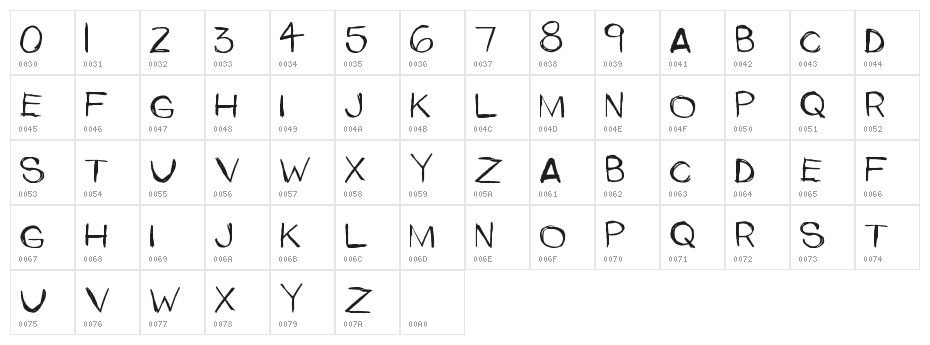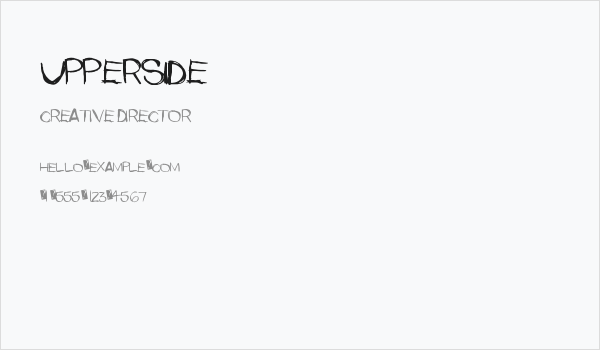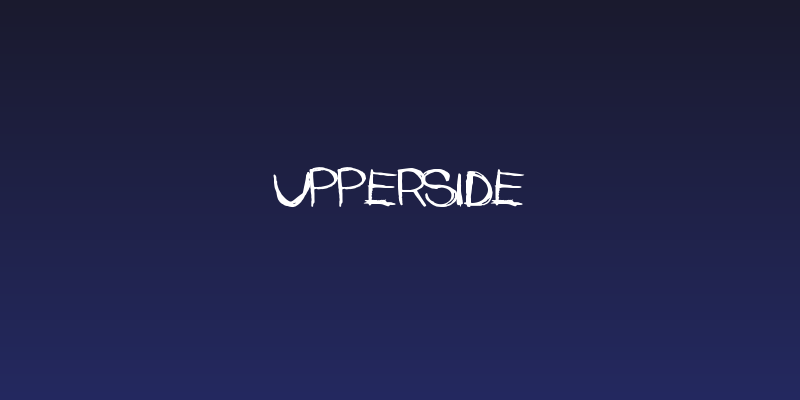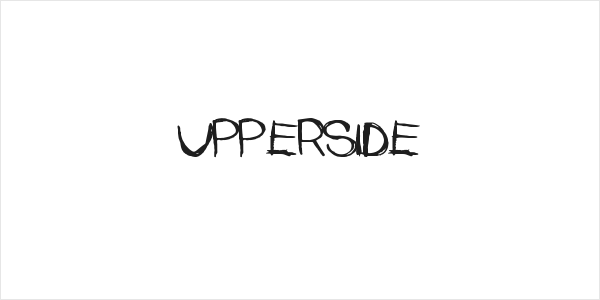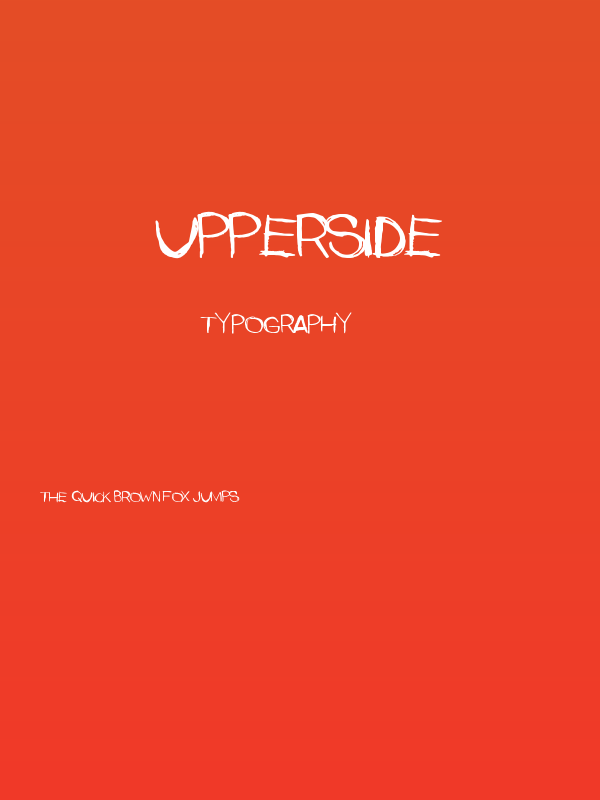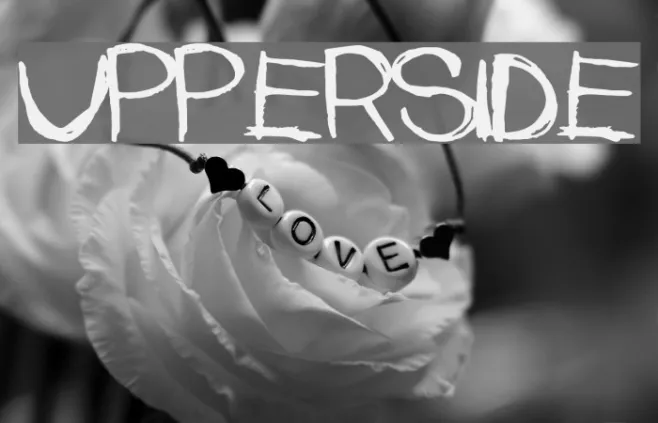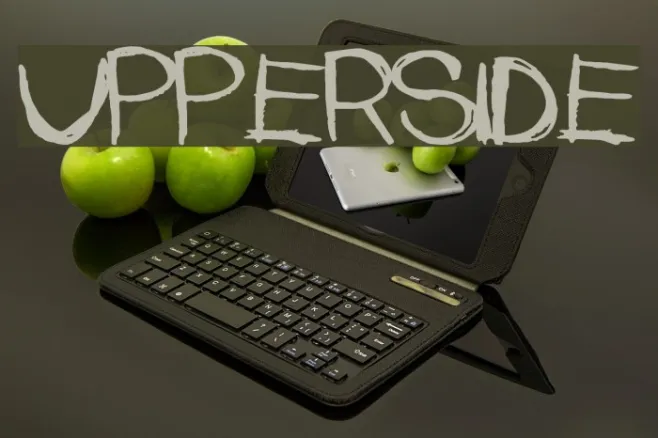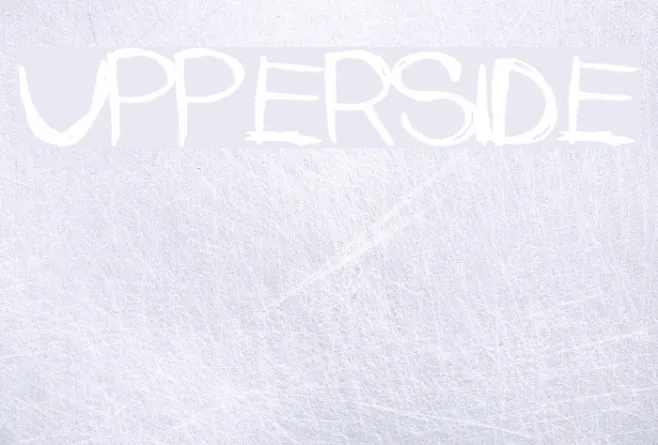
UpperSide Font
UpperSide Description
This font features a bold, expressive style with a hand-drawn appearance. The letters are uneven and slightly irregular, giving it a dynamic and energetic feel. The strokes are thick and vary in width, creating a sense of movement and spontaneity. The uppercase and lowercase letters maintain a consistent style, with a playful and artistic touch. The numbers follow the same design principles, ensuring uniformity across all characters. This font is ideal for projects that require a creative and informal look, such as posters, flyers, and artistic branding.
| Proposed Projects | Posters, flyers, artistic branding, creative projects. |